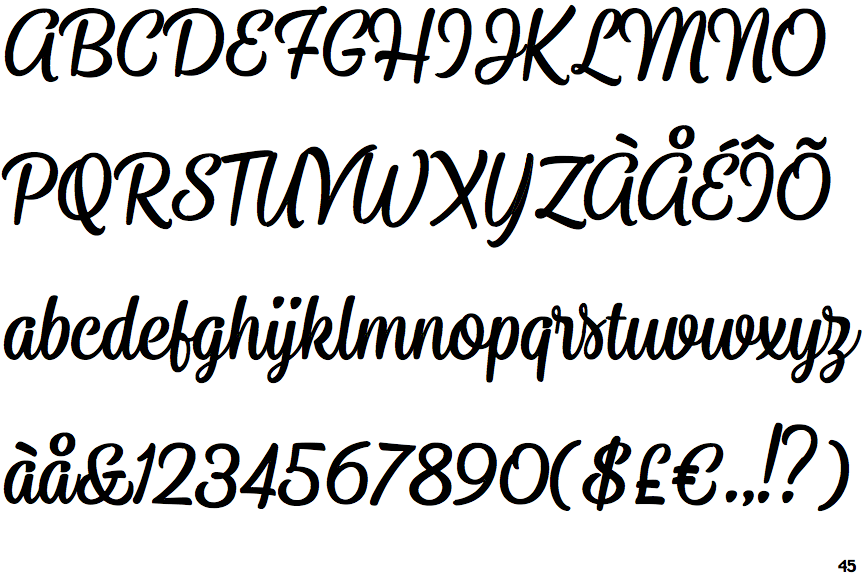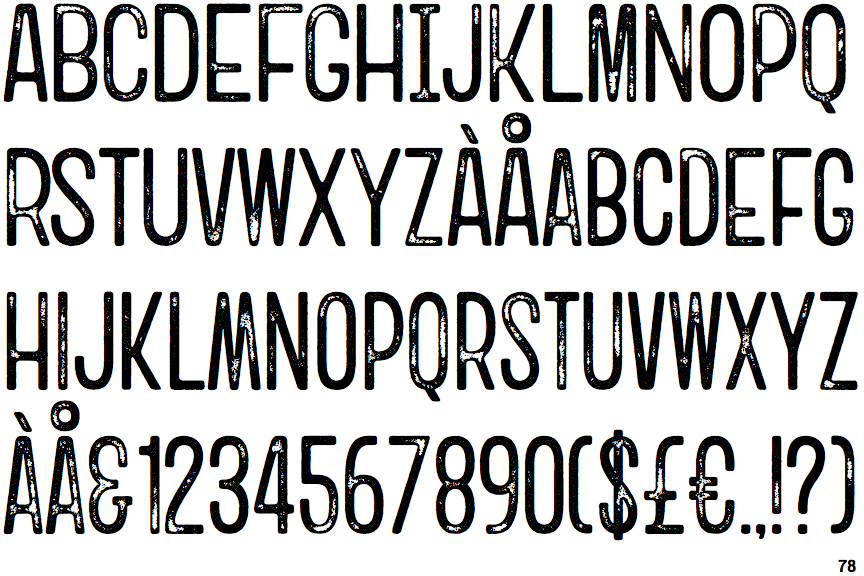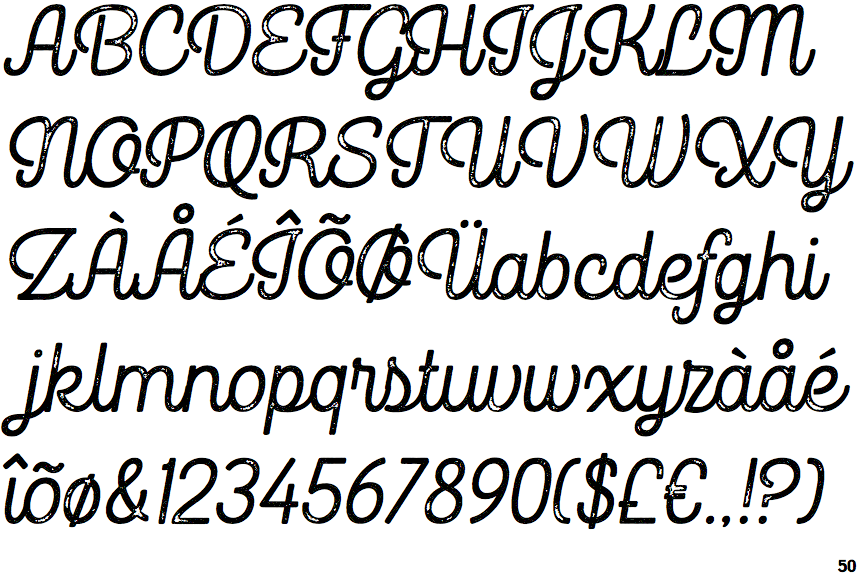
Goodwater Font . Goodwater is a type collection of brush, script & sans font. Goodwater is an original collection of a brush, three weights of a monoline script and four weights of condensed sans. Goodwater is an original collection of a brush, three weights of a monoline script and four weights of condensed sans typeface. Goodwater is an original collection of a brush, three weights of a monoline script and four weights of condensed sans typeface. Goodwater is an original collection of a brush, three weights of a monoline script and four weights of condensed sans typeface. Goodwater is an original collection of a brush, three weights of a monoline script and four. Goodwater is an original collection of a brush, three weights of a monoline script and four weights of condensed sans typeface. Goodwater is an original collection of a brush, three weights of a monoline script and four weights of condensed sans typeface. Goodwater also has a “print” version with rugged.
Goodwater is an original collection of a brush, three weights of a monoline script and four weights of condensed sans typeface. Goodwater also has a “print” version with rugged. Goodwater is a type collection of brush, script & sans font. Goodwater is an original collection of a brush, three weights of a monoline script and four weights of condensed sans typeface. Goodwater is an original collection of a brush, three weights of a monoline script and four. Goodwater is an original collection of a brush, three weights of a monoline script and four weights of condensed sans typeface. Goodwater is an original collection of a brush, three weights of a monoline script and four weights of condensed sans. Goodwater is an original collection of a brush, three weights of a monoline script and four weights of condensed sans typeface. Goodwater is an original collection of a brush, three weights of a monoline script and four weights of condensed sans typeface.
Goodwater Font Goodwater is an original collection of a brush, three weights of a monoline script and four. Goodwater is an original collection of a brush, three weights of a monoline script and four weights of condensed sans typeface. Goodwater is an original collection of a brush, three weights of a monoline script and four weights of condensed sans typeface. Goodwater is an original collection of a brush, three weights of a monoline script and four weights of condensed sans typeface. Goodwater is an original collection of a brush, three weights of a monoline script and four weights of condensed sans typeface. Goodwater is an original collection of a brush, three weights of a monoline script and four weights of condensed sans. Goodwater is a type collection of brush, script & sans font. Goodwater is an original collection of a brush, three weights of a monoline script and four. Goodwater is an original collection of a brush, three weights of a monoline script and four weights of condensed sans typeface. Goodwater also has a “print” version with rugged.
Identifont Goodwater Print Sans 1 Goodwater Font Goodwater is an original collection of a brush, three weights of a monoline script and four weights of condensed sans typeface. Goodwater is a type collection of brush, script & sans font. Goodwater is an original collection of a brush, three weights of a monoline script and four weights of condensed sans typeface. Goodwater also has a “print” version with. Goodwater Font.
Tiny Goodwater Font · Oma’s Place Machine Embroidery Designs Machine Goodwater Font Goodwater is an original collection of a brush, three weights of a monoline script and four weights of condensed sans typeface. Goodwater is an original collection of a brush, three weights of a monoline script and four weights of condensed sans typeface. Goodwater is an original collection of a brush, three weights of a monoline script and four weights of. Goodwater Font.
Goodwater Typeface on Behance Goodwater Font Goodwater also has a “print” version with rugged. Goodwater is an original collection of a brush, three weights of a monoline script and four weights of condensed sans typeface. Goodwater is an original collection of a brush, three weights of a monoline script and four. Goodwater is an original collection of a brush, three weights of a monoline script and. Goodwater Font.
Goodwater Brush W00 Regular 1.00 Fonts Free Download Goodwater Font Goodwater is a type collection of brush, script & sans font. Goodwater is an original collection of a brush, three weights of a monoline script and four. Goodwater is an original collection of a brush, three weights of a monoline script and four weights of condensed sans. Goodwater also has a “print” version with rugged. Goodwater is an original collection. Goodwater Font.
Goodwater Font YouWorkForThem Goodwater Font Goodwater also has a “print” version with rugged. Goodwater is an original collection of a brush, three weights of a monoline script and four weights of condensed sans typeface. Goodwater is a type collection of brush, script & sans font. Goodwater is an original collection of a brush, three weights of a monoline script and four. Goodwater is an original. Goodwater Font.
Tiny Goodwater Font · Oma's Place Goodwater Font Goodwater is an original collection of a brush, three weights of a monoline script and four. Goodwater is an original collection of a brush, three weights of a monoline script and four weights of condensed sans typeface. Goodwater is an original collection of a brush, three weights of a monoline script and four weights of condensed sans typeface. Goodwater is. Goodwater Font.
Goodwater Font YouWorkForThem Goodwater Font Goodwater is an original collection of a brush, three weights of a monoline script and four weights of condensed sans typeface. Goodwater also has a “print” version with rugged. Goodwater is an original collection of a brush, three weights of a monoline script and four. Goodwater is an original collection of a brush, three weights of a monoline script and. Goodwater Font.
Font Việt hóa MTD Goodwater Font Goodwater is an original collection of a brush, three weights of a monoline script and four. Goodwater is a type collection of brush, script & sans font. Goodwater is an original collection of a brush, three weights of a monoline script and four weights of condensed sans typeface. Goodwater is an original collection of a brush, three weights of a. Goodwater Font.
Goodwater Font YouWorkForThem Goodwater Font Goodwater is an original collection of a brush, three weights of a monoline script and four. Goodwater is a type collection of brush, script & sans font. Goodwater is an original collection of a brush, three weights of a monoline script and four weights of condensed sans typeface. Goodwater is an original collection of a brush, three weights of a. Goodwater Font.